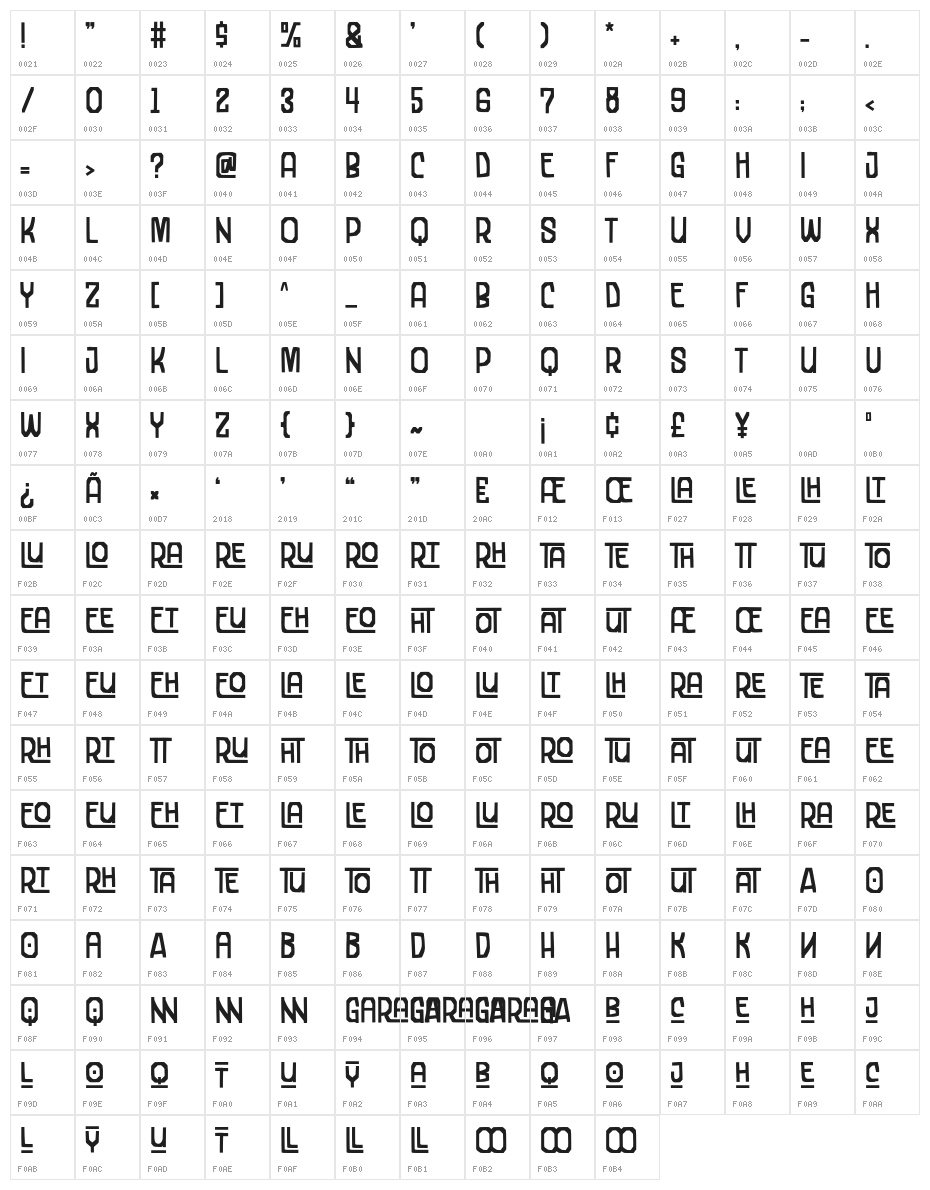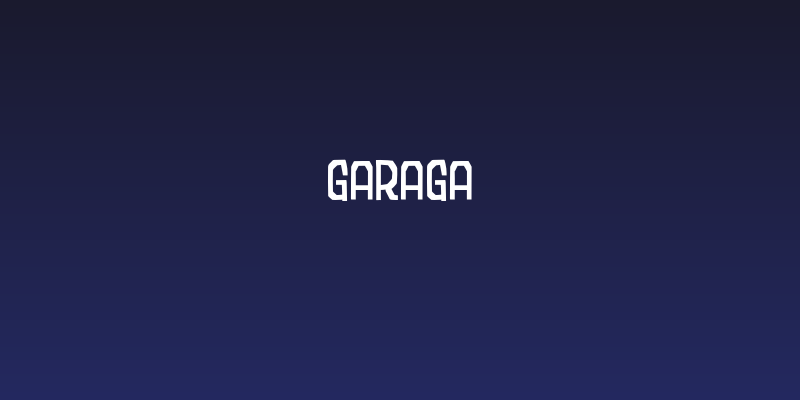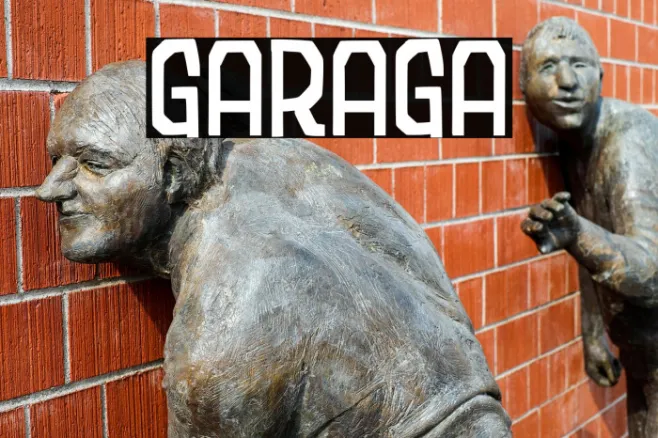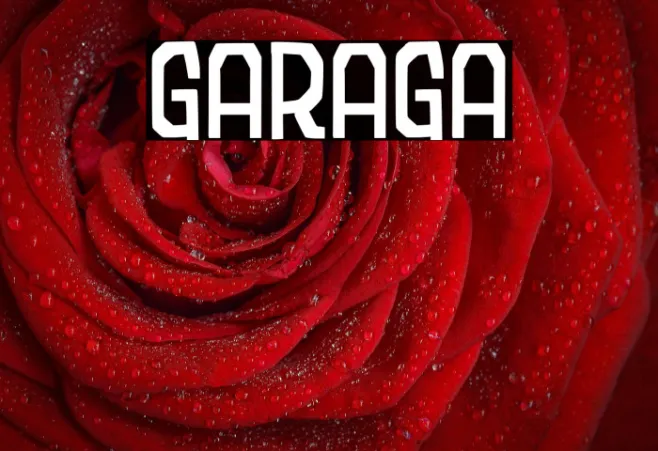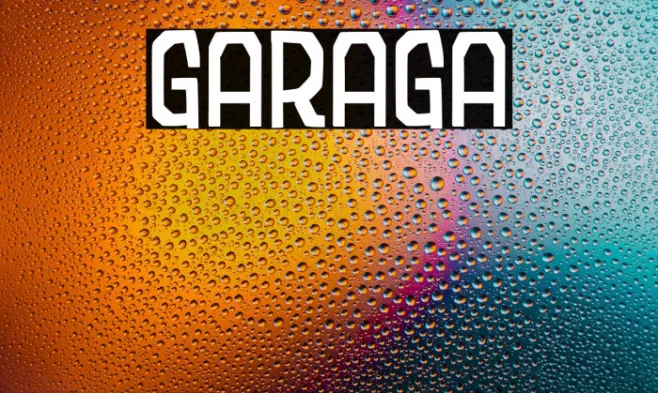
Garaga Font
Garaga Description
This font features a bold, geometric design with a strong presence. The characters are constructed with thick, uniform strokes, giving them a robust and impactful appearance. The angular edges and straight lines contribute to a modern and industrial feel, while maintaining readability. The uppercase letters are particularly striking, with a consistent height and width that create a cohesive look. The numerals and special characters follow the same design principles, ensuring a harmonious overall style. This font is well-suited for projects that require a bold statement and a contemporary aesthetic.